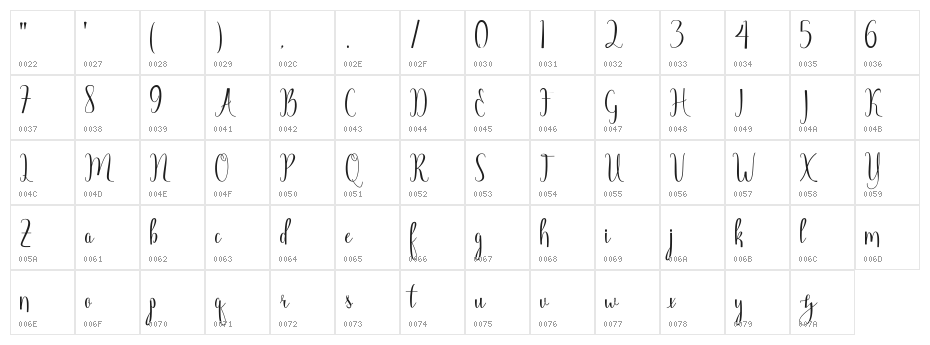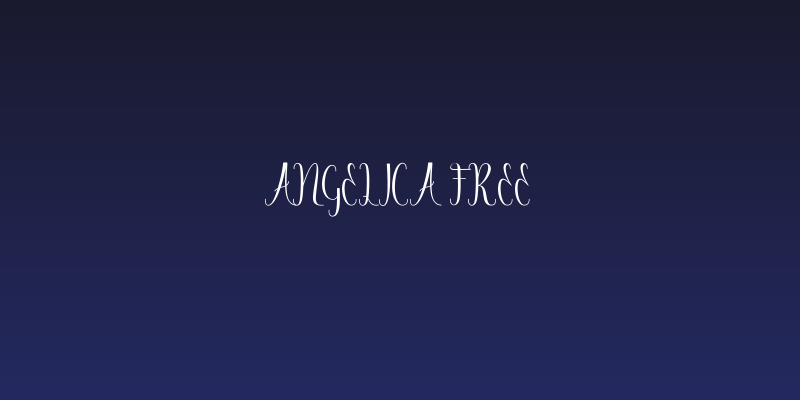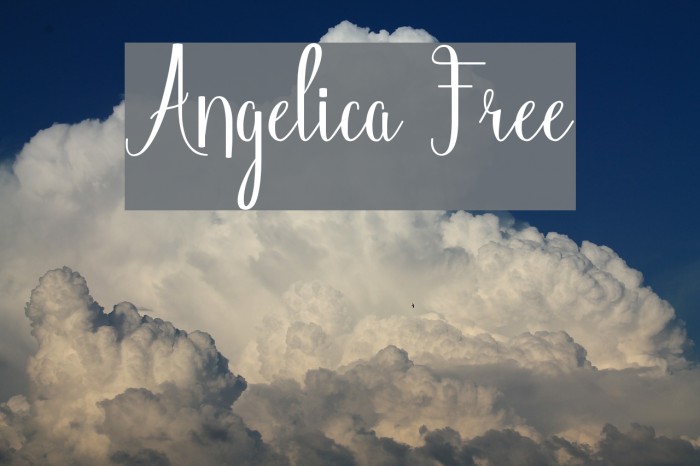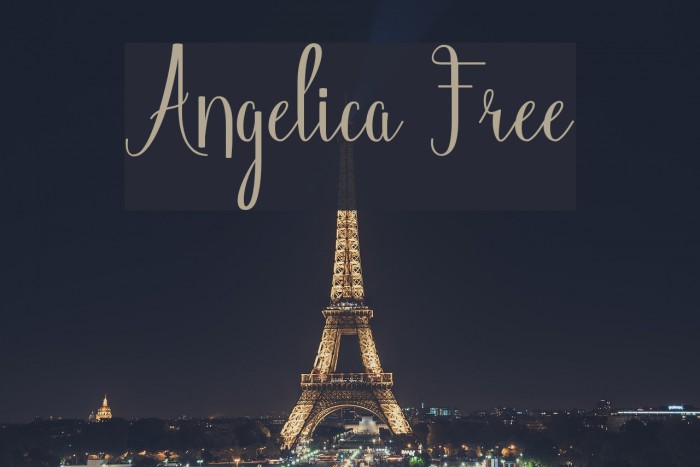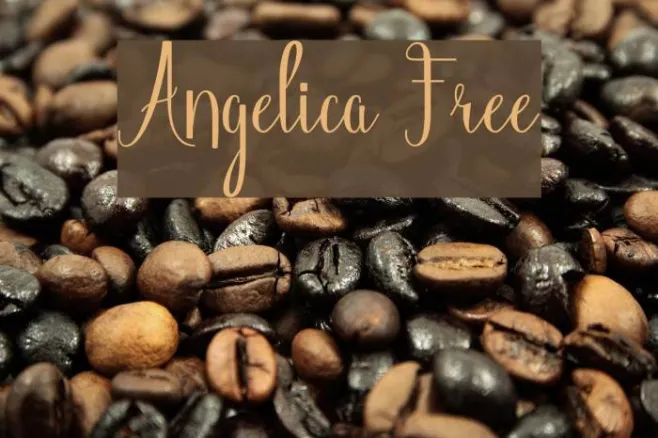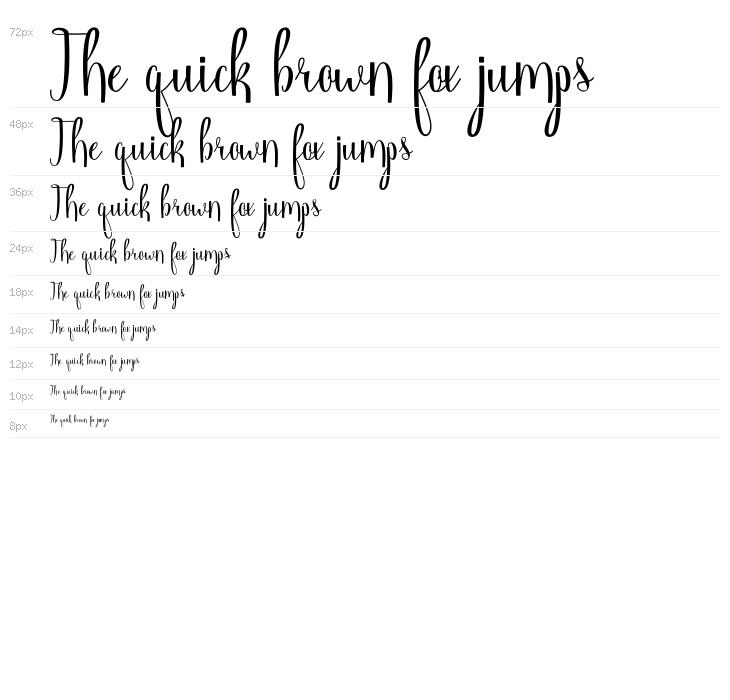
Angelica Free Font
Angelica Free Description
This font features an elegant and flowing script style, characterized by its graceful curves and loops. The uppercase letters are tall and slender, with a distinct flair that adds a touch of sophistication. The lowercase letters maintain a consistent flow, enhancing readability while preserving the decorative nature of the font. Numbers are designed to complement the letters, maintaining the same elegant style. Special characters are included, each crafted with the same attention to detail, making this font versatile for various design needs. The overall appearance is both stylish and artistic, suitable for projects that require a personal and refined touch.
| Overall Style | Elegant, Artistic |
| Proposed Projects | Ideal for wedding invitations, greeting cards, branding, and elegant logo designs. |